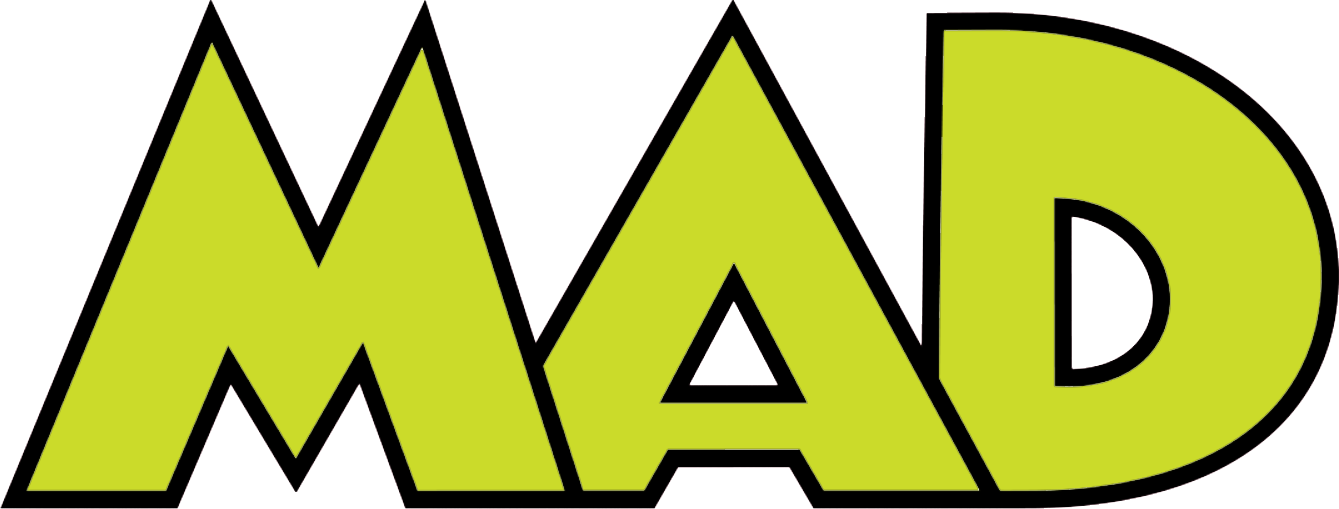
Mad Magazine Font
Mad Magazine Font - Size madfont à € by harold's fonts. 1952 original mad magazine font? Inspired by the logo of mad magazine. 8 matching requests on the forum. Web examples of fonts in use tagged with “mad (magazine)” an independent archive of typography. Web submit a font tools. I'm looking for a font to replicate the look of the original mad magazine (comic).
Web examples of fonts in use tagged with “mad (magazine)” an independent archive of typography. 8 matching requests on the forum. 1952 original mad magazine font? I'm looking for a font to replicate the look of the original mad magazine (comic). Size madfont à € by harold's fonts. Web submit a font tools. Inspired by the logo of mad magazine.
8 matching requests on the forum. I'm looking for a font to replicate the look of the original mad magazine (comic). Size madfont à € by harold's fonts. Inspired by the logo of mad magazine. Web submit a font tools. Web examples of fonts in use tagged with “mad (magazine)” an independent archive of typography. 1952 original mad magazine font?
Web examples of fonts in use tagged with “mad (magazine)” an independent archive of typography. 1952 original mad magazine font? Web submit a font tools. 8 matching requests on the forum. Inspired by the logo of mad magazine.
I'm looking for a font to replicate the look of the original mad magazine (comic). Inspired by the logo of mad magazine. 8 matching requests on the forum. Web examples of fonts in use tagged with “mad (magazine)” an independent archive of typography. Size madfont à € by harold's fonts.
1952 original mad magazine font? Web examples of fonts in use tagged with “mad (magazine)” an independent archive of typography. Web submit a font tools. 8 matching requests on the forum. Inspired by the logo of mad magazine.
Web submit a font tools. Web examples of fonts in use tagged with “mad (magazine)” an independent archive of typography. 8 matching requests on the forum. Size madfont à € by harold's fonts. 1952 original mad magazine font?
I'm looking for a font to replicate the look of the original mad magazine (comic). Web submit a font tools. Size madfont à € by harold's fonts. Inspired by the logo of mad magazine. 1952 original mad magazine font?
Size madfont à € by harold's fonts. 8 matching requests on the forum. Web examples of fonts in use tagged with “mad (magazine)” an independent archive of typography. 1952 original mad magazine font? I'm looking for a font to replicate the look of the original mad magazine (comic).
Size madfont à € by harold's fonts. 8 matching requests on the forum. Web submit a font tools. Web examples of fonts in use tagged with “mad (magazine)” an independent archive of typography. Inspired by the logo of mad magazine.
Inspired by the logo of mad magazine. Web submit a font tools. Web examples of fonts in use tagged with “mad (magazine)” an independent archive of typography. Size madfont à € by harold's fonts. 8 matching requests on the forum.
Web examples of fonts in use tagged with “mad (magazine)” an independent archive of typography. Size madfont à € by harold's fonts. Inspired by the logo of mad magazine. I'm looking for a font to replicate the look of the original mad magazine (comic). 1952 original mad magazine font?
Web examples of fonts in use tagged with “mad (magazine)” an independent archive of typography. Size madfont à € by harold's fonts. I'm looking for a font to replicate the look of the original mad magazine (comic). 1952 original mad magazine font? Web submit a font tools.
1952 Original Mad Magazine Font?
Size madfont à € by harold's fonts. I'm looking for a font to replicate the look of the original mad magazine (comic). Web submit a font tools. Inspired by the logo of mad magazine.
8 Matching Requests On The Forum.
Web examples of fonts in use tagged with “mad (magazine)” an independent archive of typography.